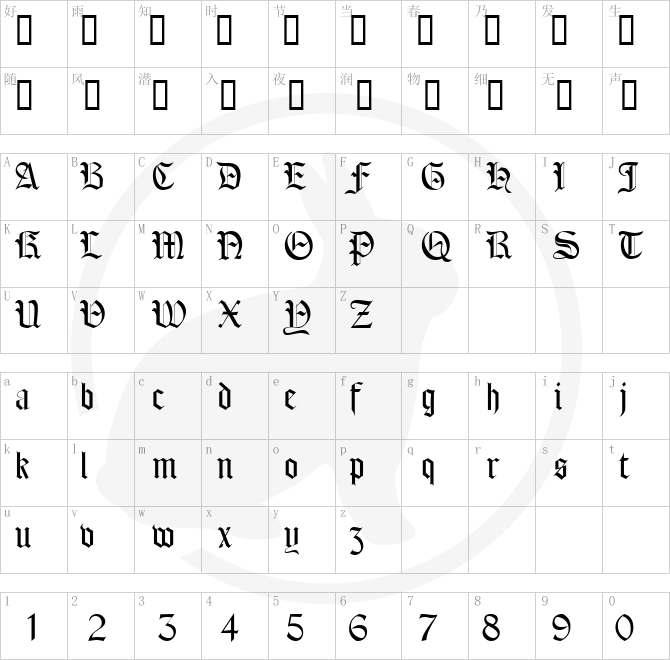
- Font Name:IanSegoe
IanSegoe.ttf is a very beautiful artistic font, IanSegoe.ttf is widely used in the design and printing of various books and pictures,IanSegoe.ttf has a strong visual impact,IanSegoe.ttf is a commonly used font in newspapers, magazines and books, and is used in posters, e-commerce Poster design, store design, logo design, font design and other fields.IanSegoe.